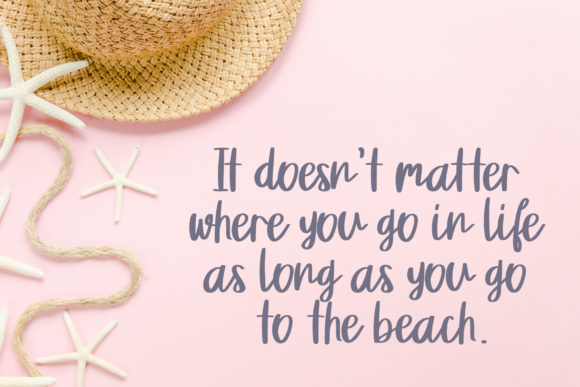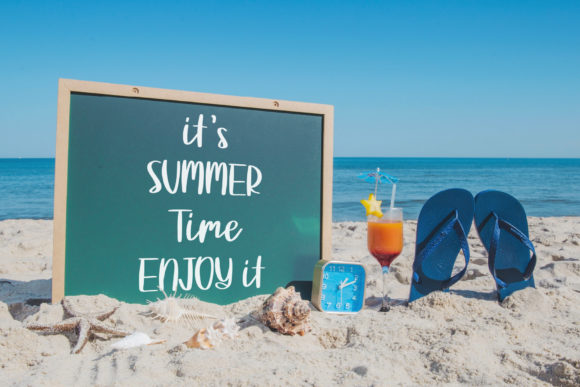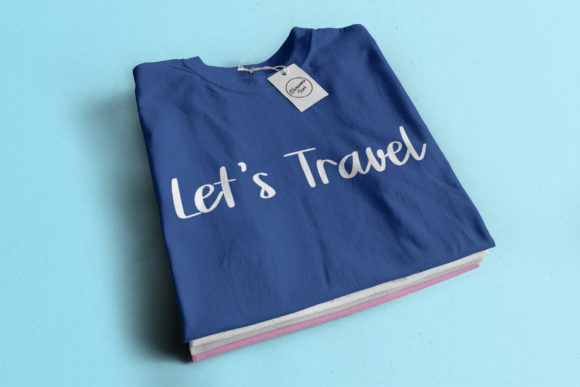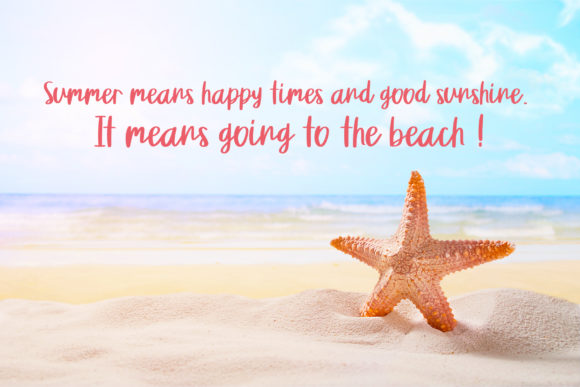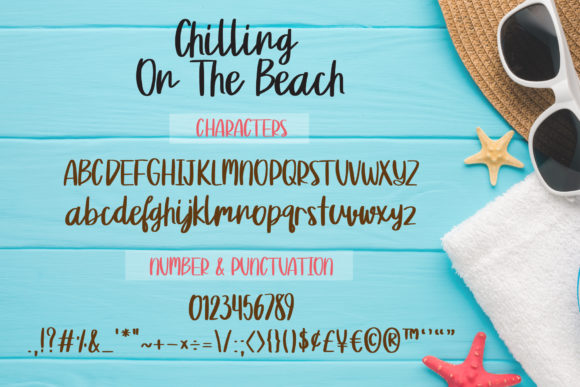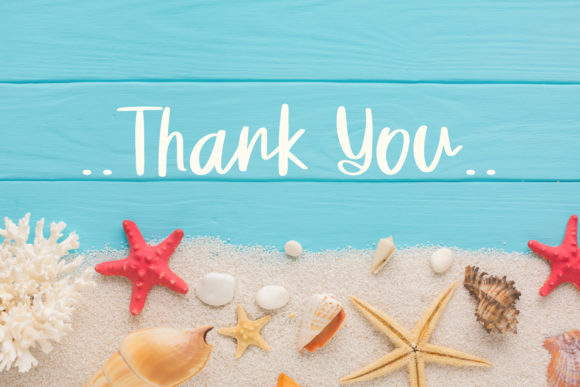
Introduction to Chilling on the Beach Font
Chilling On The Beach is a sweet and modern handwritten font.
Fall in love with its incredibly versatile style and use it to create spectacular designs .
Key Features of Chilling on the Beach Font